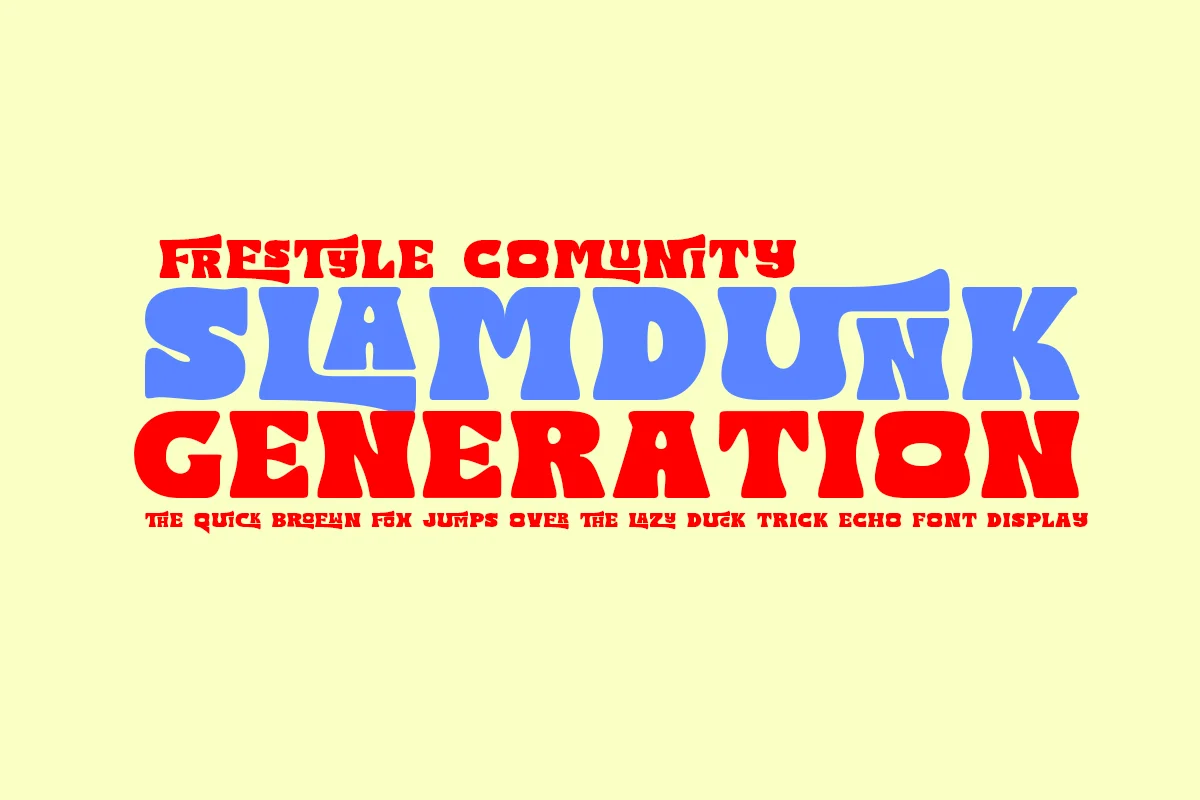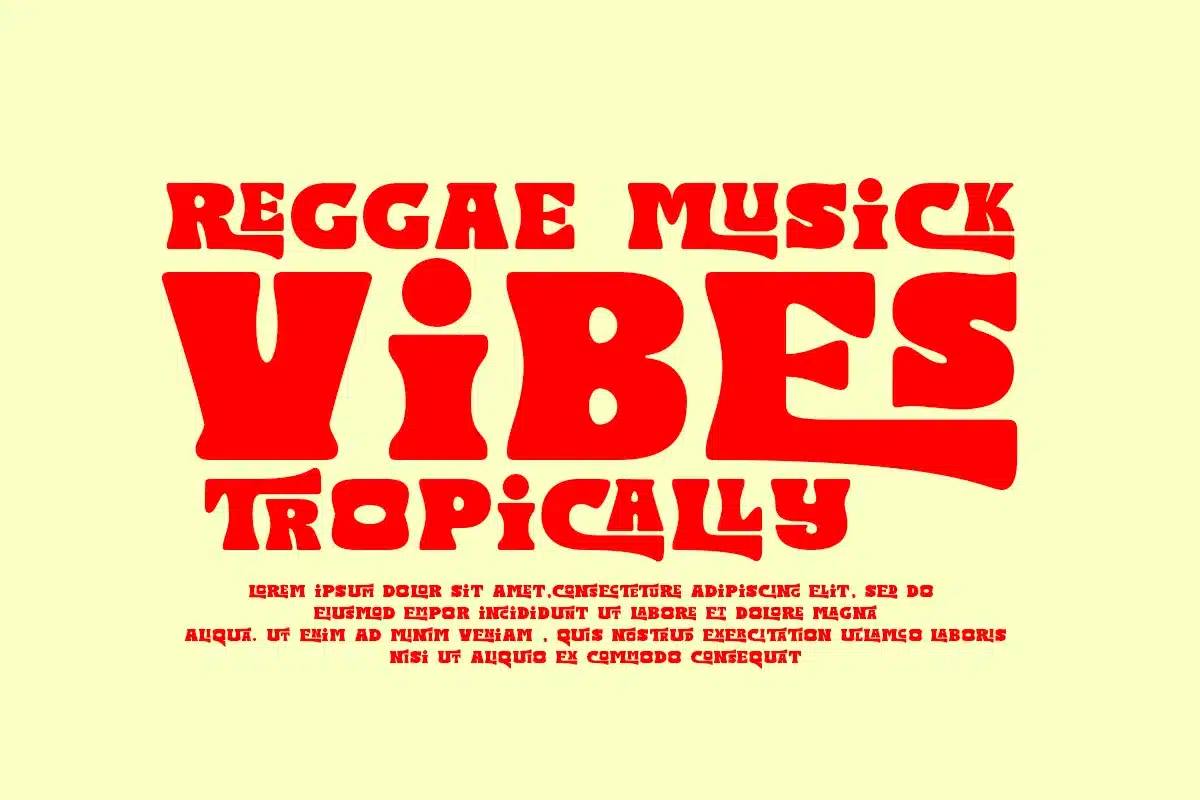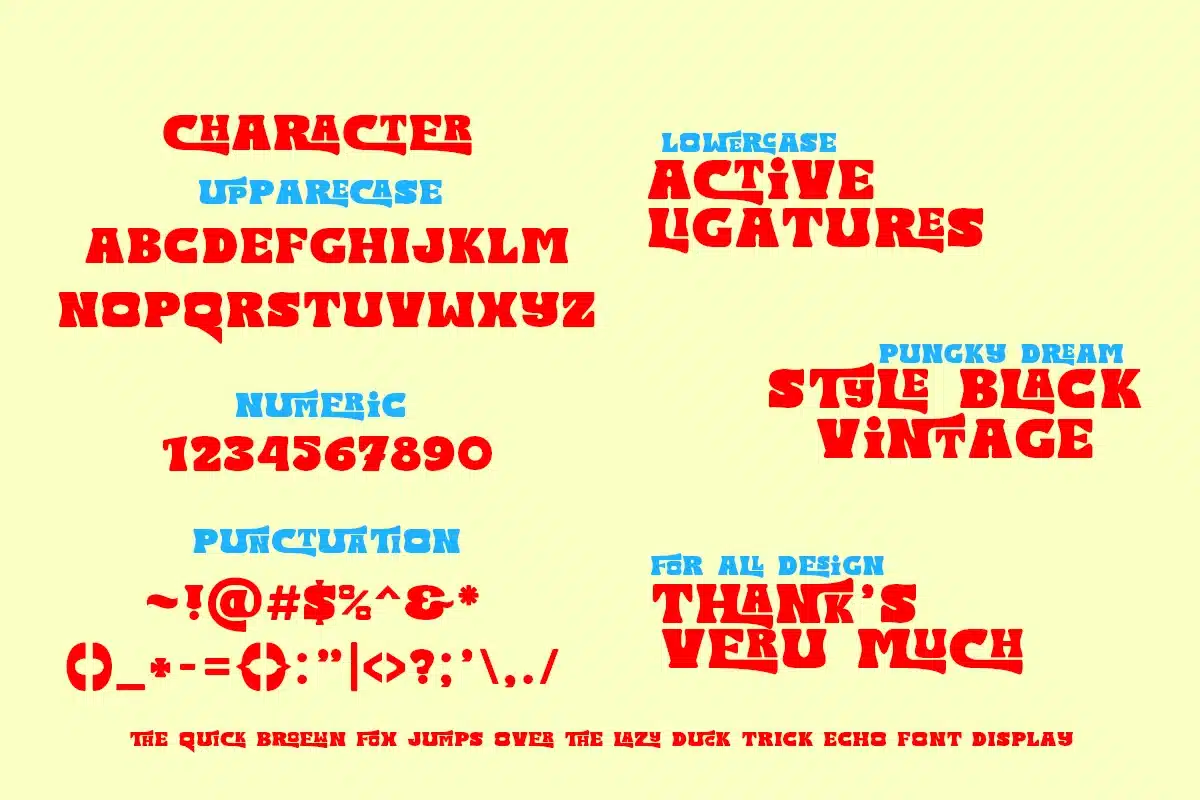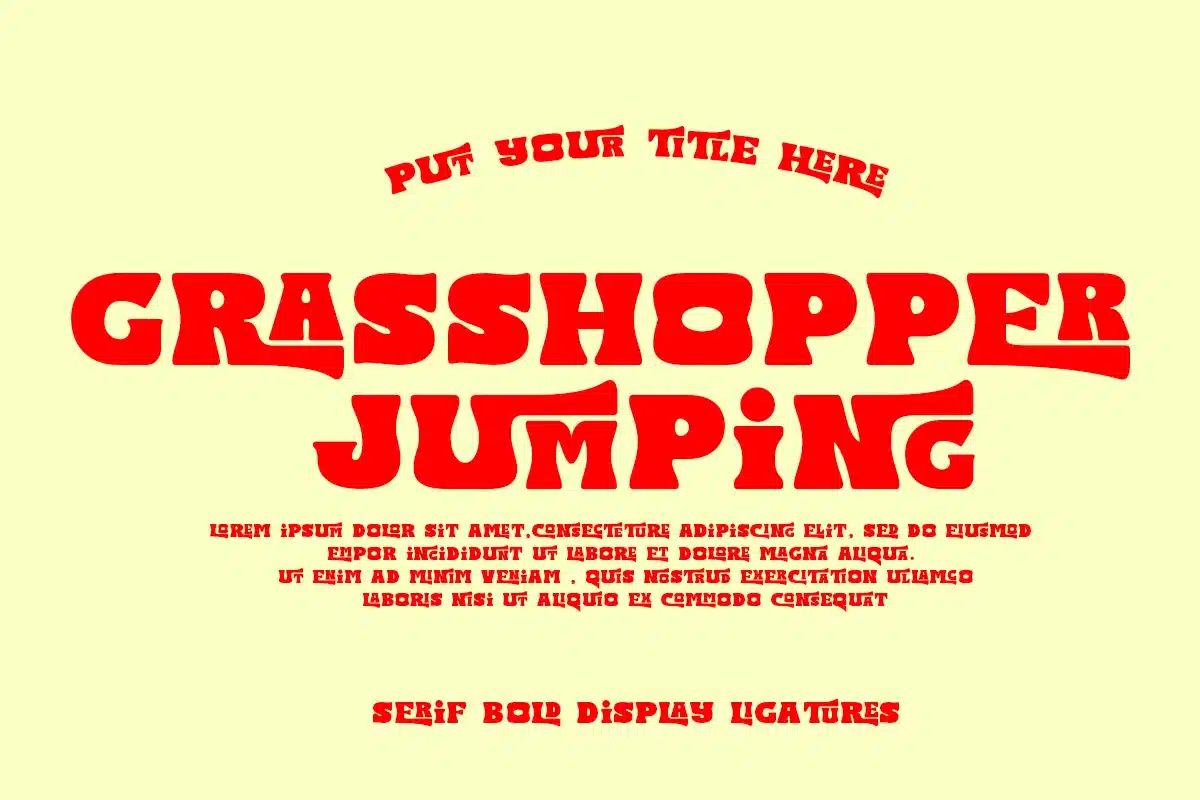
Trick Echo Font
Experience the elegance and trendy appeal of Trick Echo – every designer's dream font. Infused with grace and a dash of boldness, Trick Echo transforms ordinary designs into modern masterpieces. This isn't just a font; it's a charming companion on your design journey, packed with a variety of characters to make your artwork stand out. Trick Echo adds an extra layer of class, offering a distinct new edge that enhances the overall aesthetic of your designs. With Trick Echo, immerse your work in a sea of chic and distinctive style. Trick Echo font include TTF and OTF and Ligatures